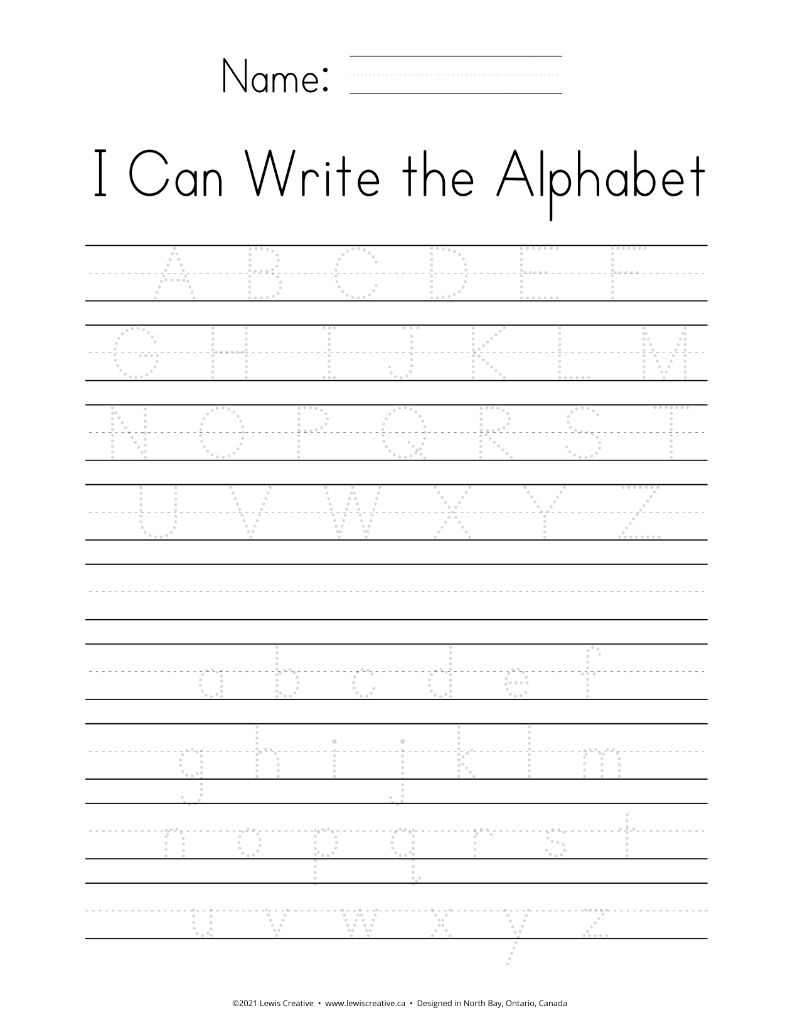
Finding the perfect font can elevate your design projects, making them stand out. Free tracing fonts with lines are a fantastic option for those looking to add a unique touch without breaking the bank.
Free Tracing Fonts With Lines
Free tracing fonts with lines offer a playful way to engage with typography. They provide clear outlines that make it easy to trace over, perfect for teaching kids how to write or for crafting projects.
Many websites offer a wide selection of these fonts, allowing you to choose styles that fit your theme. Whether you prefer cursive or block letters, there’s something for everyone.
Using these fonts can also inspire creativity. You can mix and match different styles to create unique designs that reflect your personality or brand. The possibilities are endless!
Incorporating free tracing fonts with lines into your work can enhance both aesthetics and functionality. They are an excellent resource for educators and designers alike, making learning and creativity enjoyable.
Explore the world of free tracing fonts with lines today and discover how they can transform your projects. With so many options available, you’re sure to find the perfect fit for your needs.